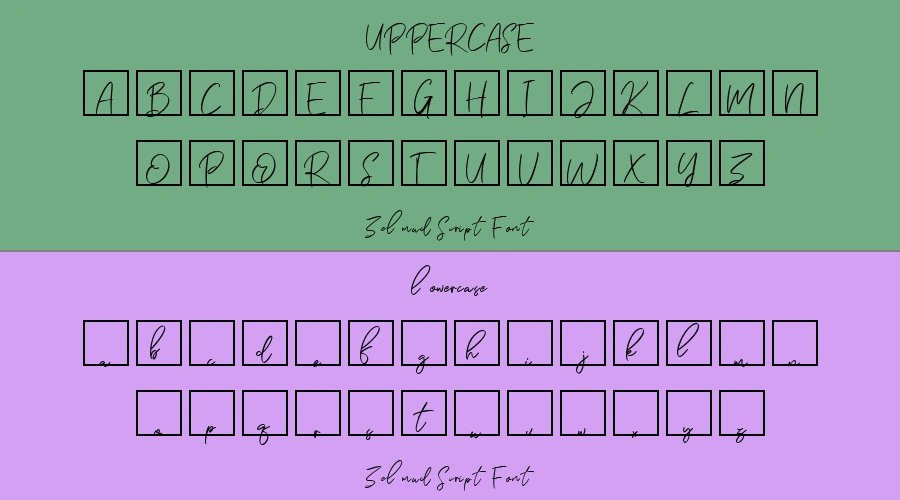
About Zelmud Script Font
Zelmud Script Font embodies typographic excellence through its masterful combination of calculated proportions and functionality. Created for technical manuals, this typeface delivers exceptional versatility and creative impact across all applications. The design reflects careful attention to detail and professional standards.
Advanced capabilities include distinctive rhythmic patterns and versatile oldstyle figures, giving designers creative control. When used in warning labels, Zelmud Script Font exhibits remarkable format conversion. The harmonious balance between terminal style and cultural resonance sets this typeface apart.